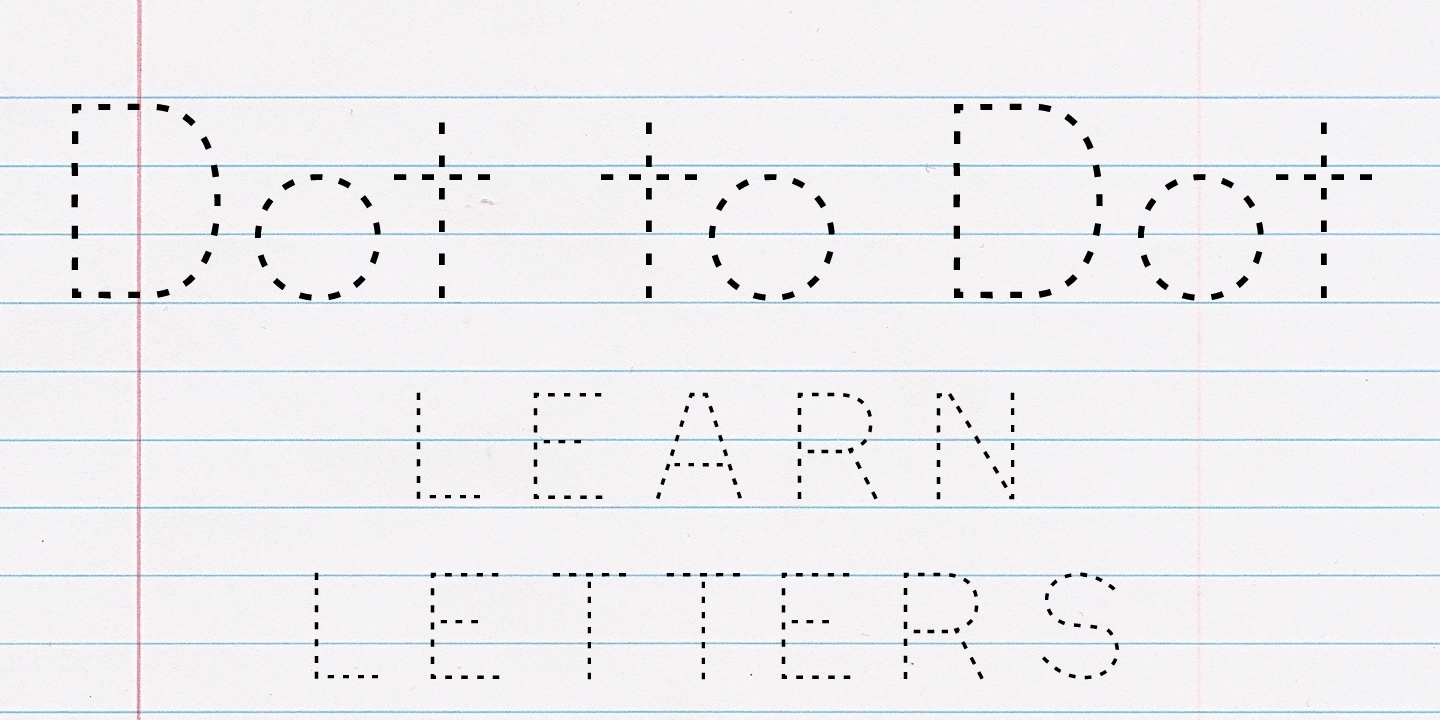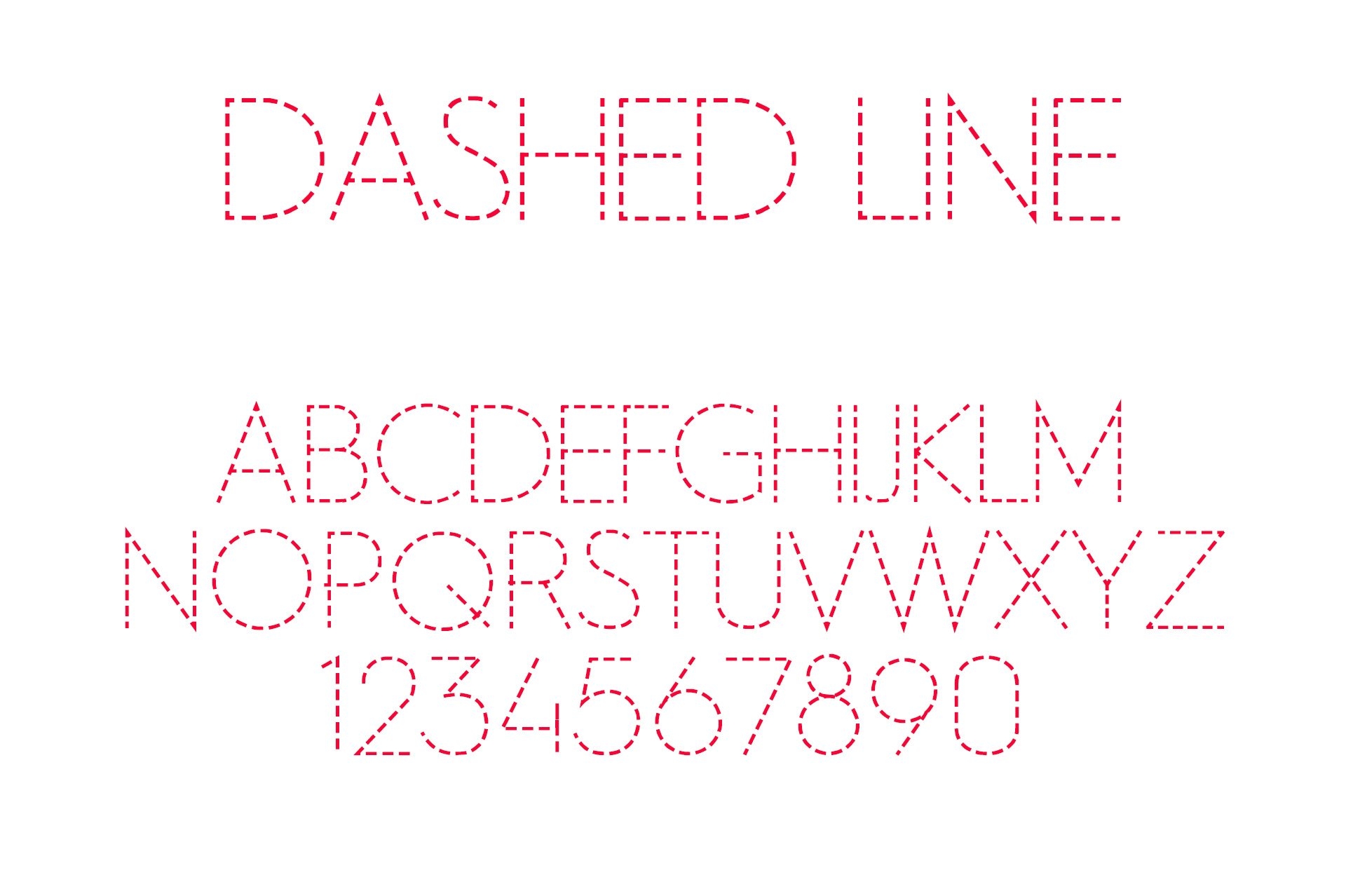
Finding the perfect font for tracing can enhance learning experiences for children and adults alike. A free dotted line font is an excellent tool for practicing handwriting and improving fine motor skills. It’s both fun and educational!
There are numerous websites offering free dotted line fonts for tracing. These fonts can be downloaded and installed on your computer, making them accessible for various projects. Whether for worksheets or creative crafts, they are versatile.
When choosing a font, consider its clarity and style. A well-designed dotted line font will make tracing easier and more engaging. Look for options that provide both uppercase and lowercase letters, as well as numbers.
Incorporating these fonts into educational activities can significantly enhance learning outcomes. Teachers and parents can create customized worksheets tailored to individual needs, making the learning process more effective and enjoyable.
In conclusion, a free dotted line font for tracing is a valuable resource for anyone looking to improve writing skills. With the right tools, learning becomes a fun adventure that encourages creativity and growth.